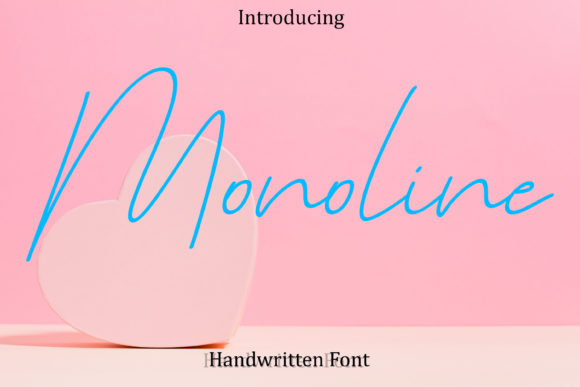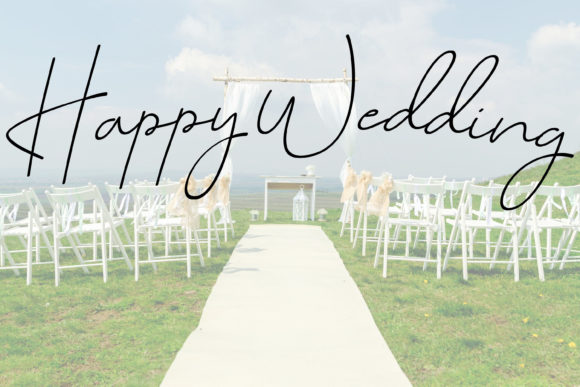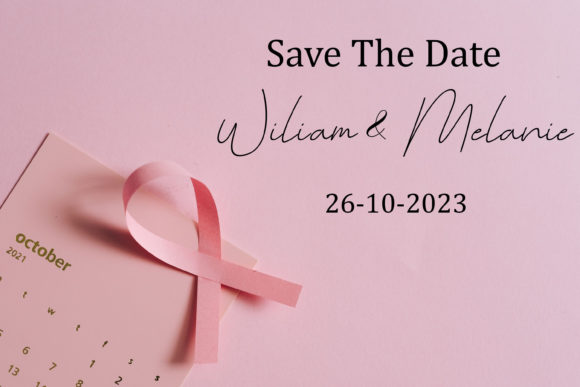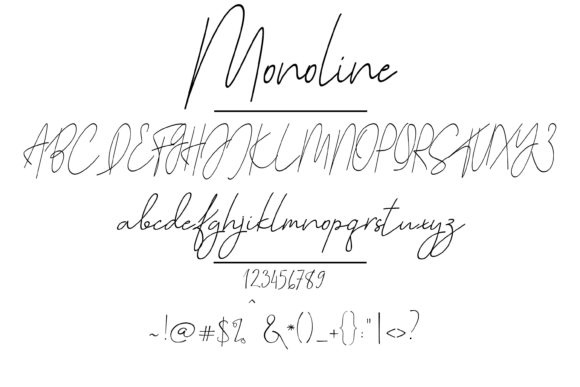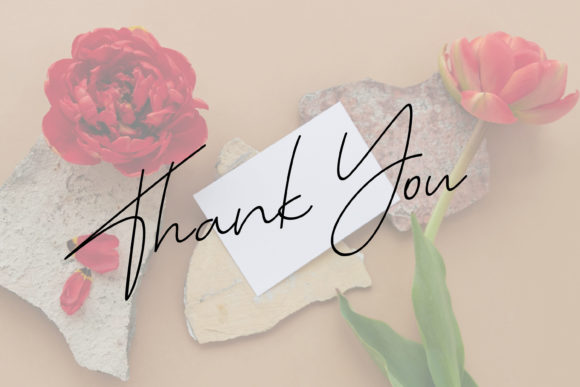
Monoline Font
About Monoline Font
Introducing “Monoline,” a slim handwritten font designed to add elegance and style to your projects. With its graceful and curvy lines, Monoline makes your work stand out with its refined appearance. Perfect for product packaging, branding projects, magazine covers, social media graphics, weddings, and more, Monoline brings a touch of sophistication to any design.
This font’s slim and elegant style adds a sense of modernity and charm to your creations. Whether you’re creating a logo, branding materials, or social media posts, Monoline enhances the visual appeal of your designs with its graceful lines and balanced proportions.
Experience the beauty and versatility of Monoline and watch as it transforms your projects into stunning visual masterpieces. Whether you’re a professional designer or a creative enthusiast, this font invites you to explore new possibilities and express yourself with confidence and style.
Unlock the full potential of your designs with Monoline and let its slim handwritten font elevate your projects to new heights. With its elegant lines and versatile style, Monoline is sure to become a beloved addition to your design toolkit, inspiring creativity and sophistication with every use.